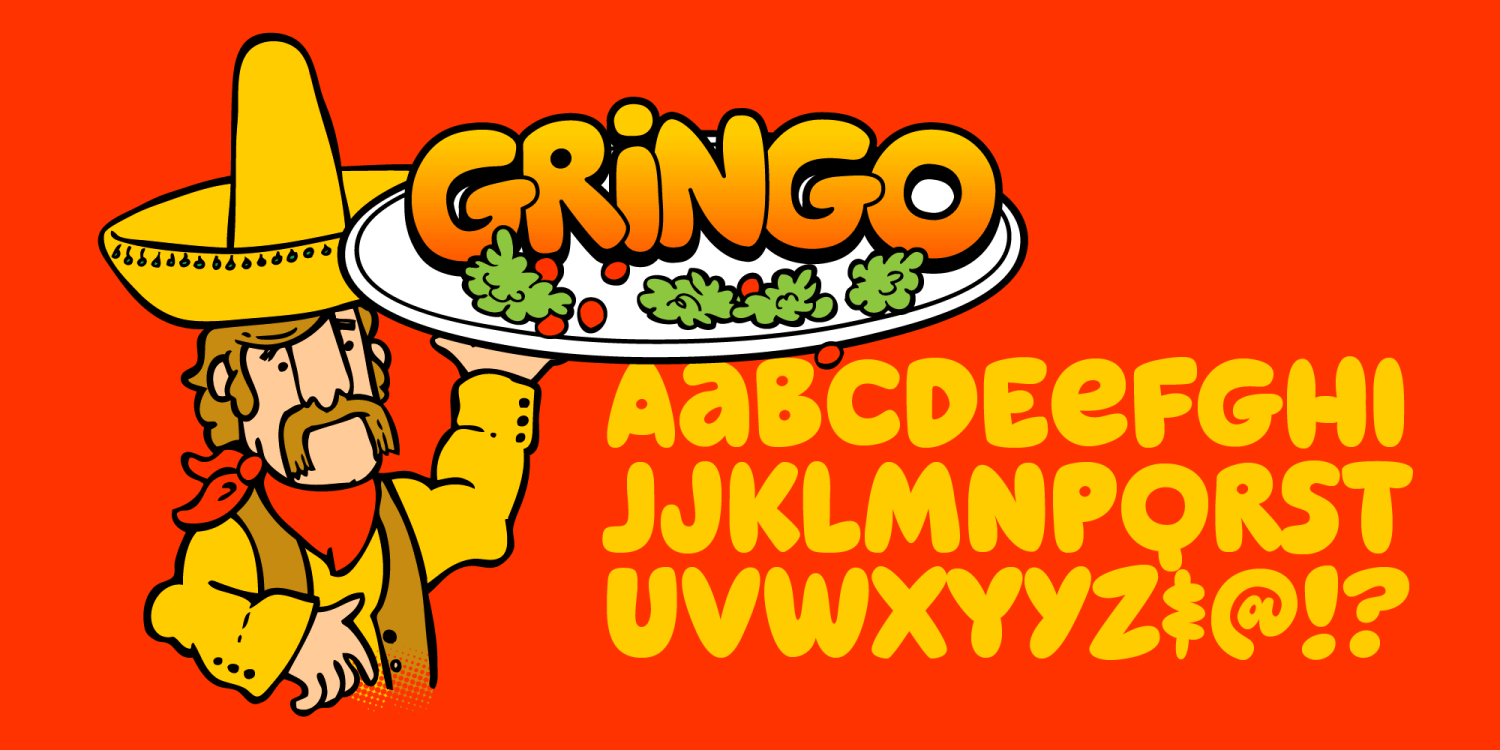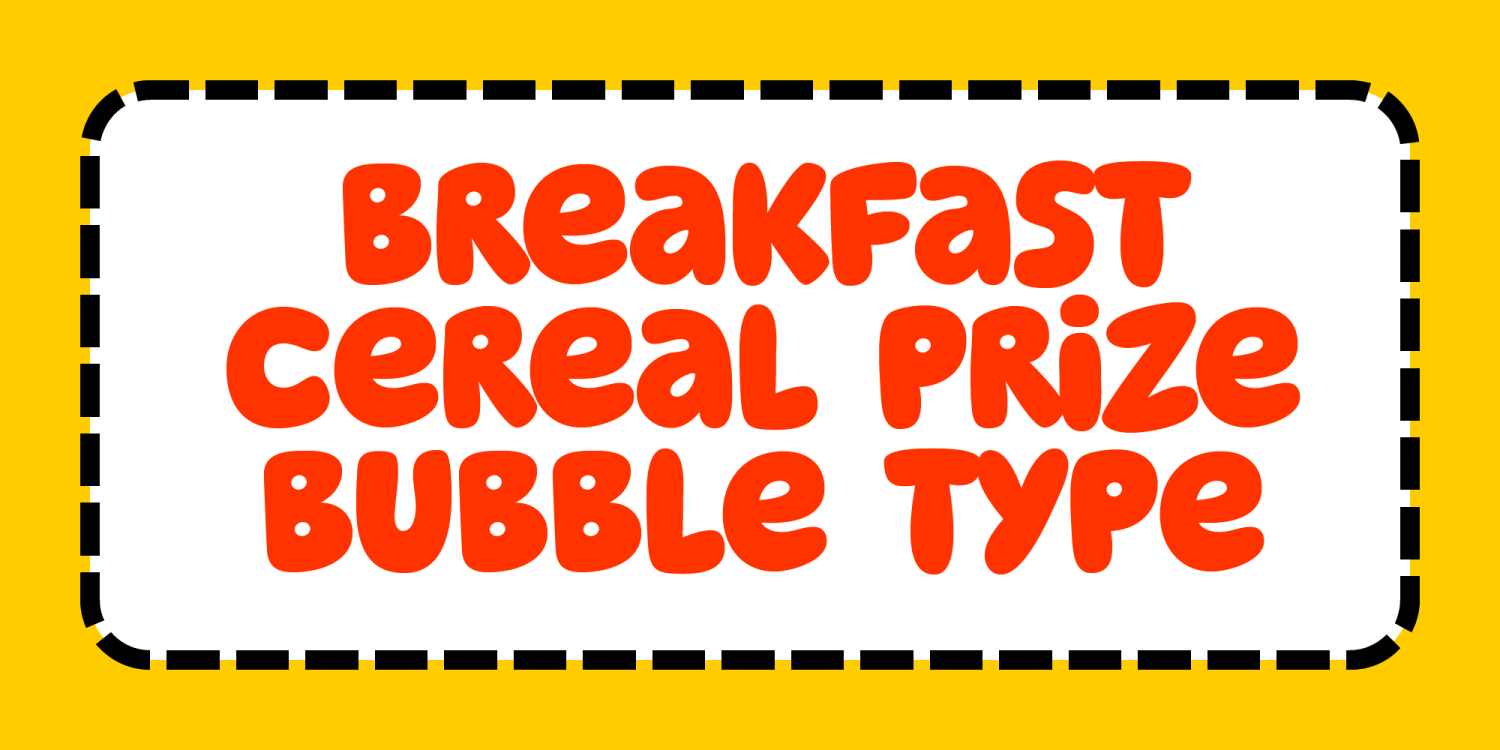
Steady goes it...careful with that tray, guero. Papa is bringing a fresh new font to the table. It's Gringo, and it's going to add a little comic relief to your design world. This is not what you would call a body text font, it's a big, fat roundy li'l number. Careful, that plate is hot!